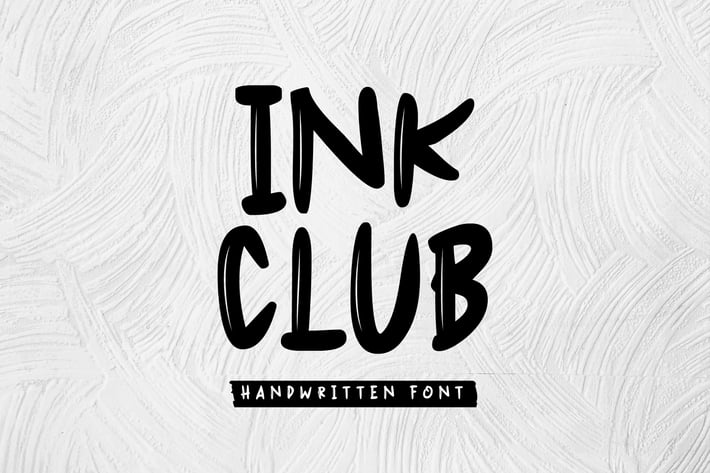
Ink Club - Handwritten Font
Ink Club is a handwritten font created with ink style and to fit to use as branding project designs. It features an unique style and will add smooth and natural feel to your upcoming projects. Get inspired by its unique feel and use it to create designs, posters, brand logo, product packaging and many more!